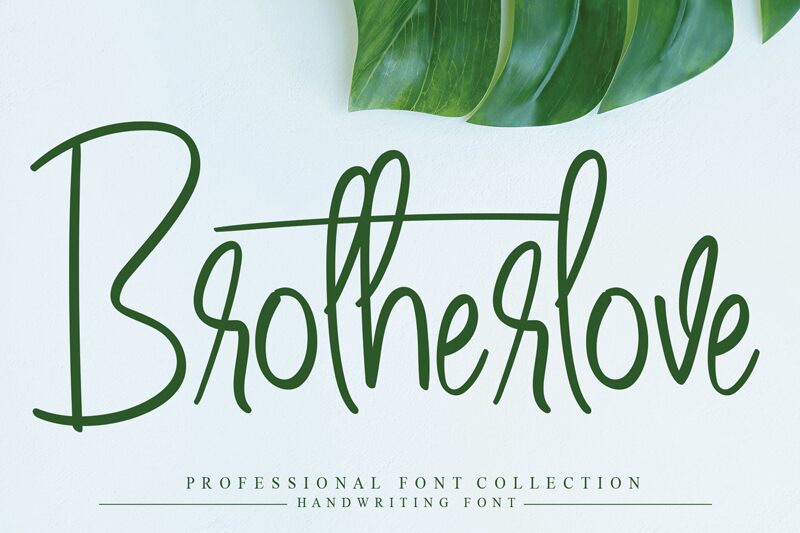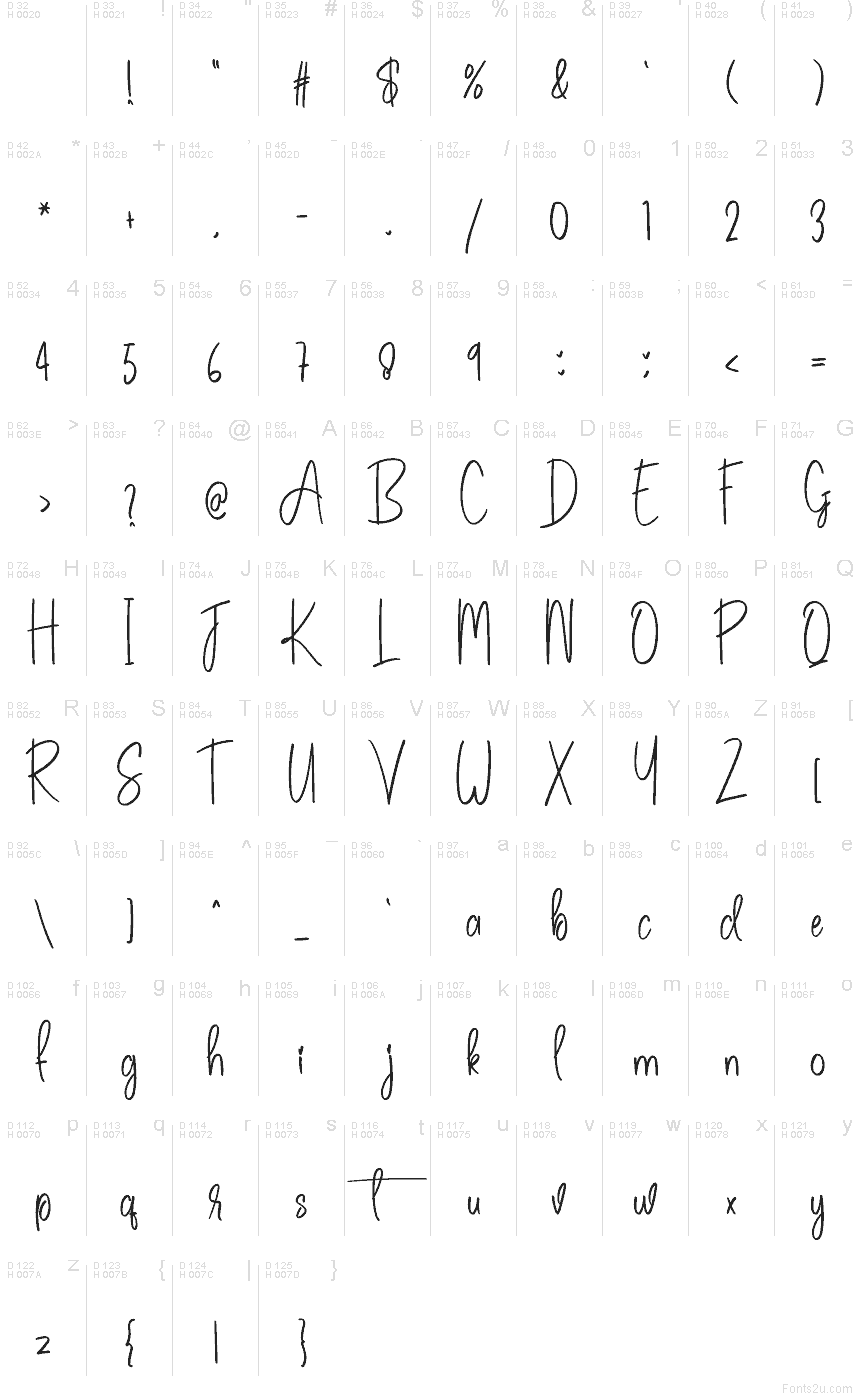
Brotherlove
Brotherlove font by Scratchones is a free handwritten font that captures the feel of a quick note scrawled with a fine marker. Tall, narrow letters sway gently, while a single long stroke ties the word together like a loose string, giving everything a casual but intentional flow. The line weight is smooth and inky, so text feels light, airy, and just a little bit flirtatious.
Using Brotherlove, your titles and names feel personal—like they were written just for the viewer. This free font shines on wedding signage, save-the-dates, Instagram quotes, handmade product labels, friendly blog headers, and casual brand marks. It works beautifully when you keep it large and generous, then pair it with a clean geometric sans serif for supporting text.